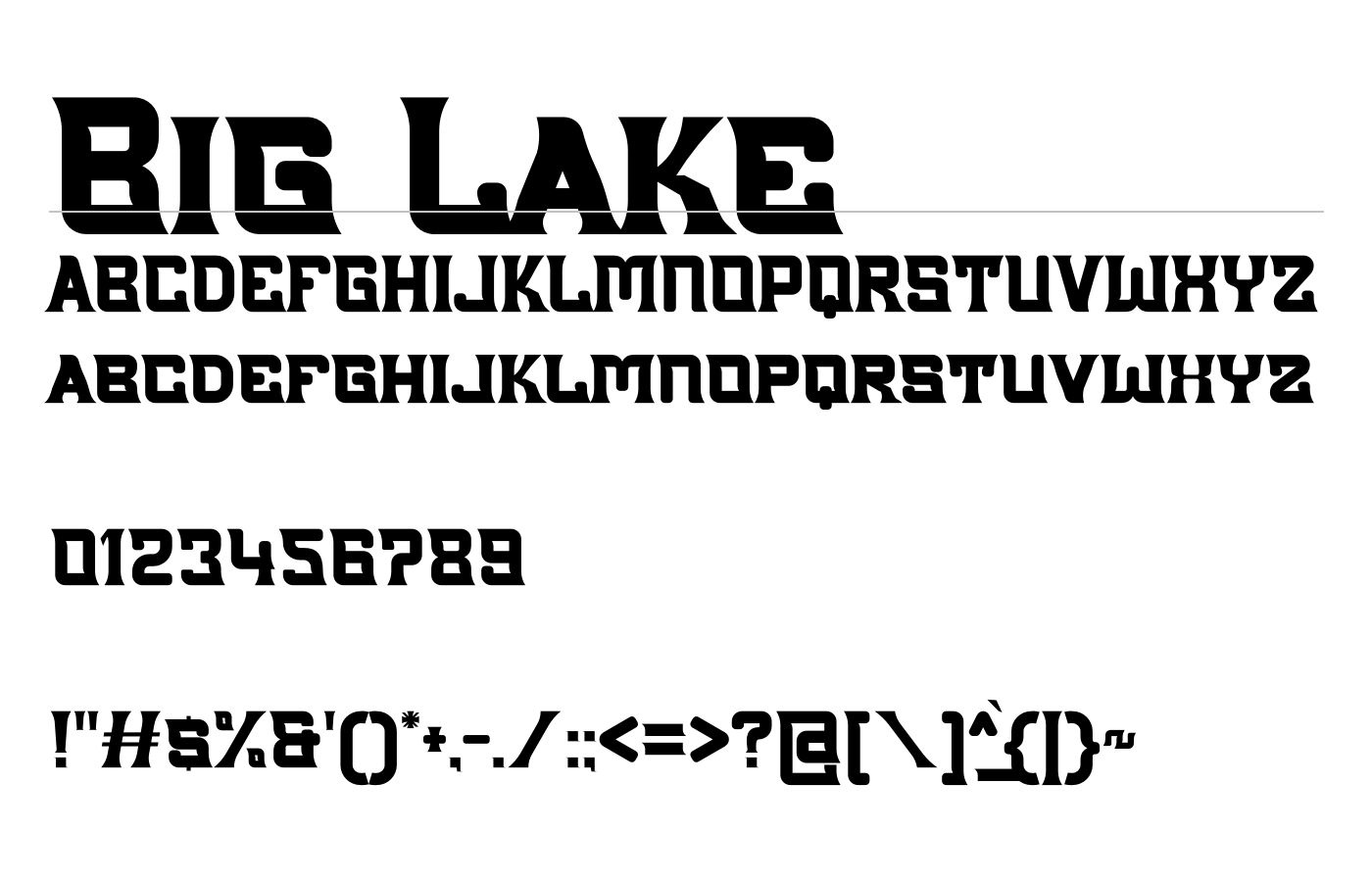
Big Lake is a bold, condensed slab serif font with strong geometric shapes and sharp, blocky serifs that give it a sturdy and distinctive presence. Its high contrast and tight letter spacing create a dramatic, vintage western vibe, making it ideal for eye-catching headlines, posters, and branding that wants to convey strength and rugged character. This font works best where you need to make a bold statement with a touch of classic Americana style.
Big Lake Font
About Big Lake Font
| Font family | Big Lake Font |